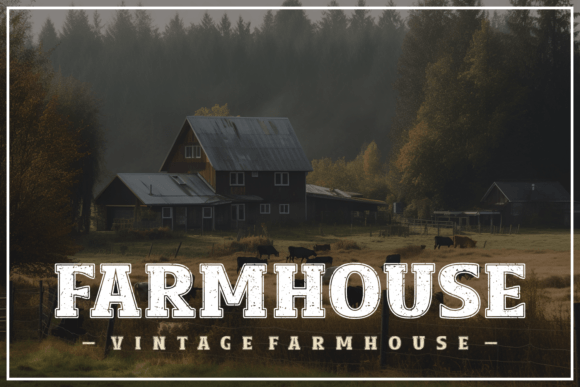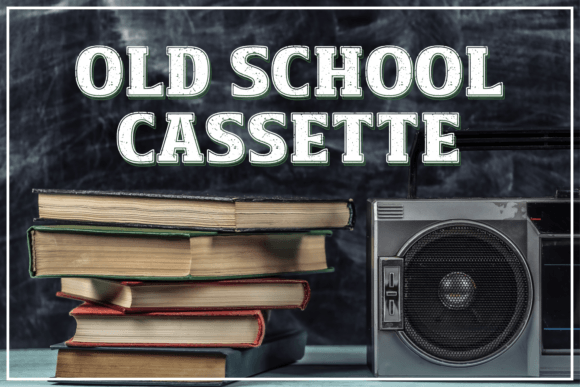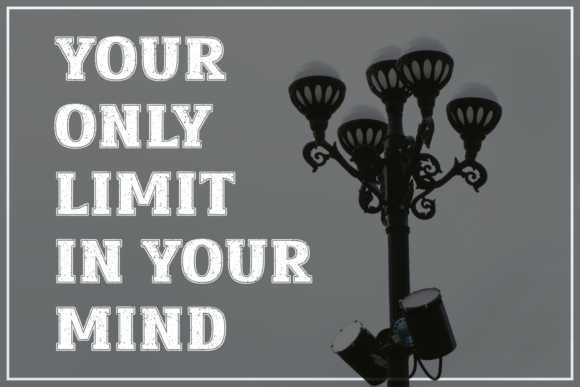
College Vintage Font
Introducing “College Vintage,” a charming vintage texture font that takes you on a nostalgic journey. With its textured details reminiscent of classic college apparel, this font effortlessly infuses a touch of retro authenticity into your designs. Perfect for projects seeking a timeless and aged aesthetic, College Vintage adds character and warmth to signage, logos, or any creative endeavor that benefits from a hint of yesteryear’s charm. Elevate your design with this font’s classic appeal and embrace the enduring allure of vintage style.